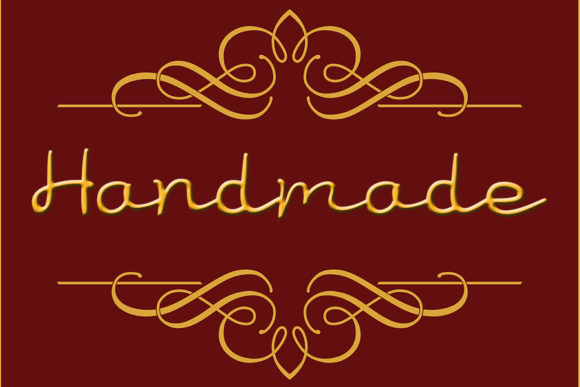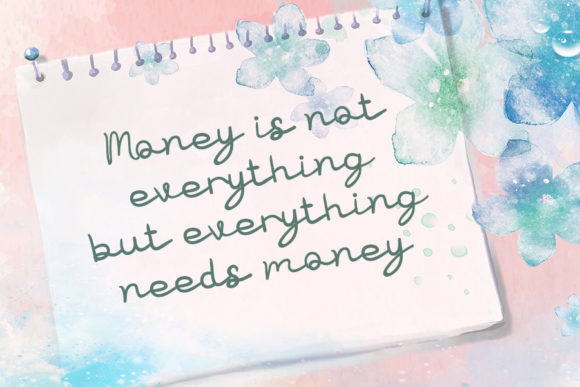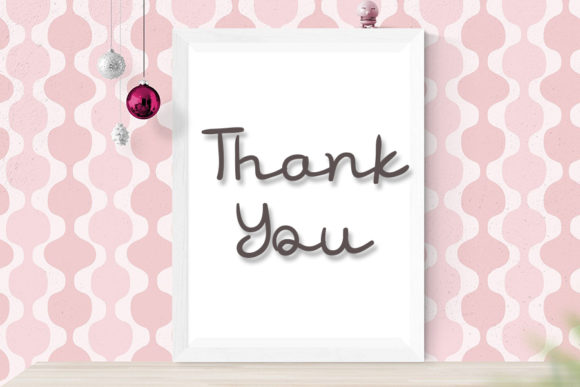
Introduction to Right Hand Font
Right Hand is a simple script font with a relaxed theme, featuring a cute style.
No matter the topic, this font will be an incredibly asset to your fontsโ library, as it has the potential to elevate any creation .
Key Features of Right Hand Font
Why Choose Right Hand Font?
Right Hand Font offers exceptional quality and versatility, making it a valuable addition to your design toolkit. Whether you’re creating for personal projects or commercial use, Right Hand Font delivers professional results.